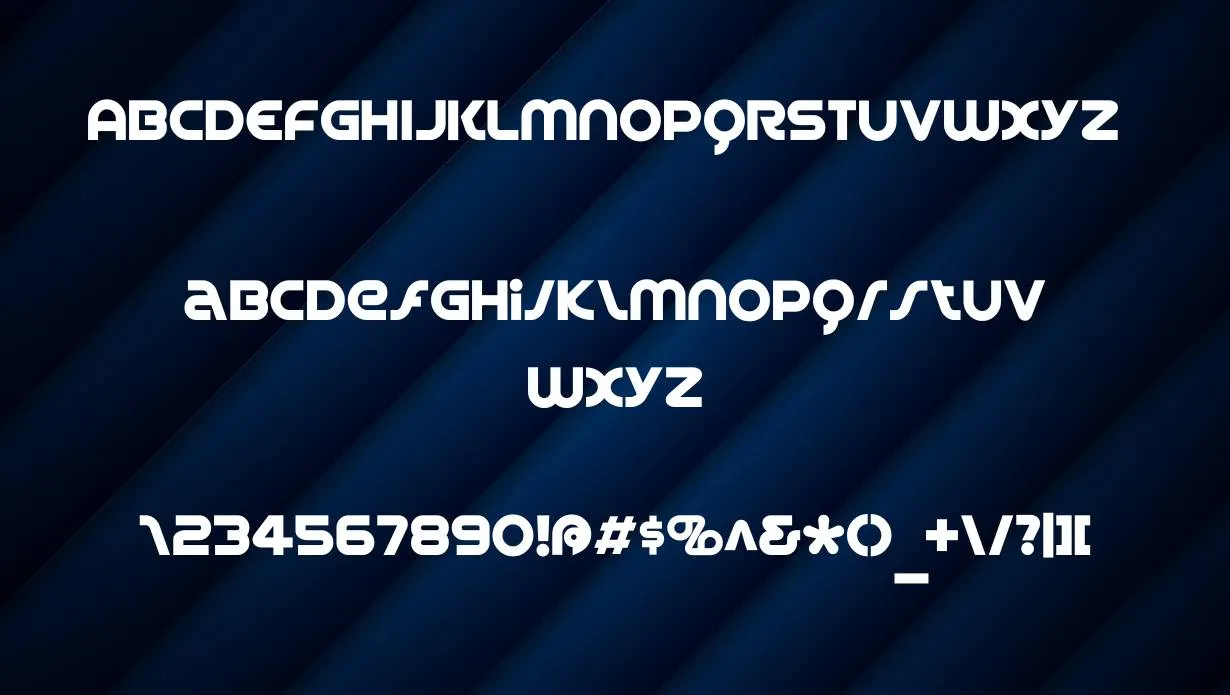
Get ready to spin with creativity using Spin Cycle Font. Its dynamic and energetic characters add a playful and vibrant quality to your text.
| Name | Spin Cycle Font |
| Designer | Jess Latham |
Whether you’re designing for fitness events, dynamic advertisements, or any project that demands a lively and animated feel, Spin Cycle Font ensures your words spin with excitement.